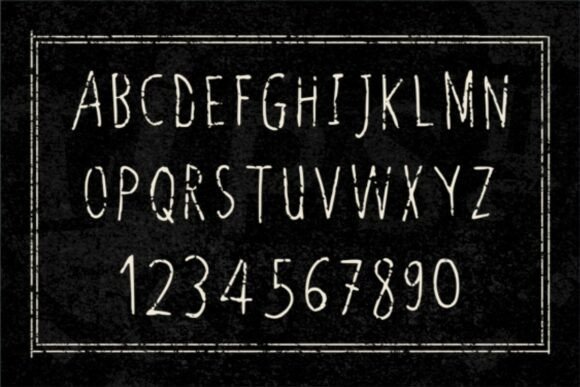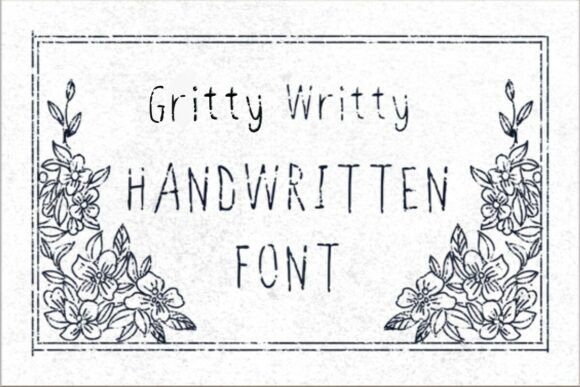
Get Your Creative On: Unleashing the Power of the Gritty Writty Font
We’ve all been there – staring at a blank page, waiting for the perfect spark to ignite our creativity. For some, it’s the hum of the coffee machine, while for others, it’s the scratch of a pen on paper. For me, it’s the messy, imperfect doodles that somehow manage to bring my ideas to life. And that’s exactly what the Gritty Writty Font is all about – capturing the raw, unbridled energy of your creative process and turning it into something truly unique.
This raw, scribbly handwritten font is the perfect tool for designers looking to add a little edge to their work. With its offbeat energy and perfectly imperfect charm, the Gritty Writty Font is a game-changer for anyone who wants to stand out from the crowd. Whether you’re designing edgy graphics, quirky notes, or simply want to add a bit of personality to your writing, this font is sure to deliver.
- Font Family: Gritty Writty Font is a unique, hand-drawn font designed to evoke a sense of rough, textured texture.
- Unique Characteristics: Gritty Writty Font features distressed textures, irregular letterforms, and a rough, handmade aesthetic, making it ideal for adding a touch of grit and personality to designs.
Gritty Writty Font Review
I recently had the chance to work with the Gritty Writty Font, and I must say, it’s been an interesting experience. Here are my thoughts on this unique font.
- ✨ The Gritty Writty Font has a bold and edgy feel to it, making it perfect for projects that need a rugged or vintage vibe.
- ✨ The font’s irregularities add a touch of character, making it stand out from more traditional fonts.
- ✨ Gritty Writty is highly legible, even at smaller font sizes, making it suitable for body text or captions.
- ⚠️ The font’s inconsistent spacing can make it challenging to use in longer blocks of text, where alignment and flow are crucial.
- ⚠️ Some characters may require manual adjustments to ensure proper alignment, which can be time-consuming.
The Gritty Writty Font is a great choice for projects that require a bold, vintage aesthetic. While it has its limitations, its unique character and high legibility make it a solid addition to any designer’s toolkit. With some careful planning and adjustments, you can unlock the full potential of this gritty font.
Tip: Use Gritty Writty Font to add a bold, playful touch to your social media graphics or marketing materials.
- Use the font to add a gritty, edgy feel to your designs.
Tip: Use Gritty Writty Font to create bold, eye-catching headlines or to add a touch of personality to your branding materials.
Tip: Use Gritty Writty Font to add a bold, attention-grabbing touch to your presentations or documents.